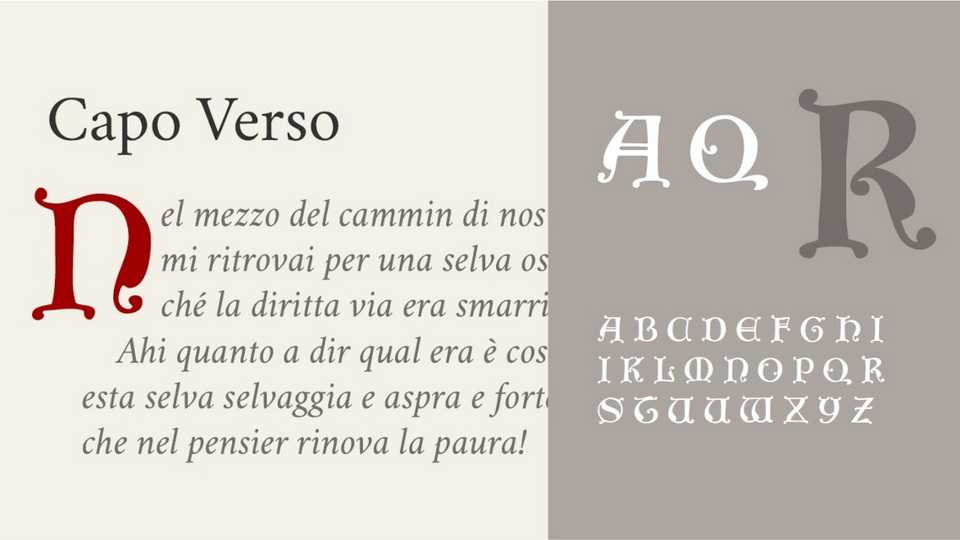
Download Capo Verso font, a decorative display typeface that beautifully captures the ornate elegance and historical charm of Tudor-era typefaces.
Designer: Michele Casanova